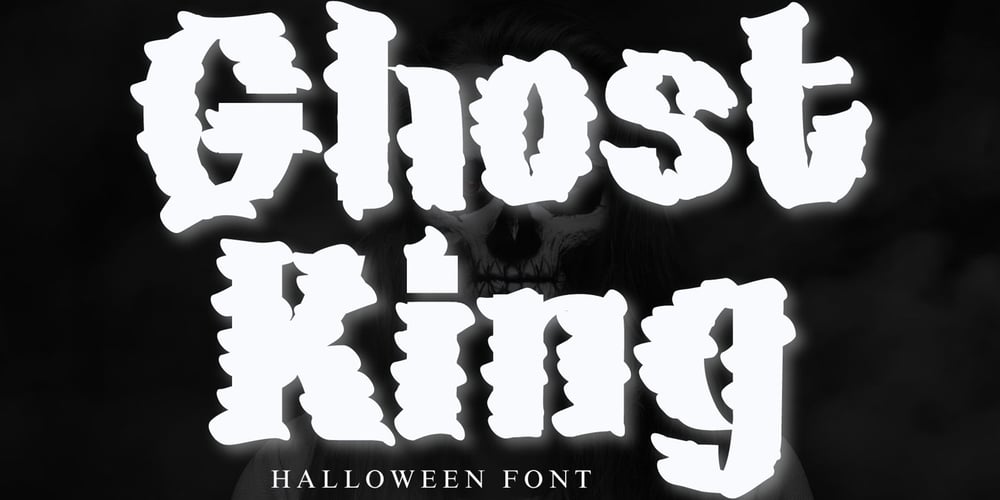
Ghost King
Ghost King font
Ghost King Font Family was designed by Ahmad Afandi and published by Letterafandi Studio. Ghost King contains 1 styles and family package options. Elevate your festive designs with Ghost Smoke, a mesmerizing Halloween-inspired font. Imbued with a touch of spooky charm, this font is an astounding choice to bring your Halloween creative visions to life. With its haunting allure, Ghost Smoke effortlessly infuses a chilling ambience into any of your design masterpieces. Bold and distinctive, this font embodies the eeriness of Halloween, making it the ideal typeface for all of your seasonally themed projects. Never has it been easier to encapsulate the spirit of Halloween in every nuance of your design. Harness the power of Ghost Smoke, and let your Halloween designs speak volumes.